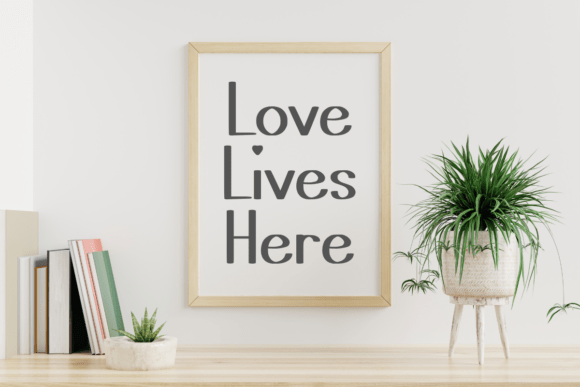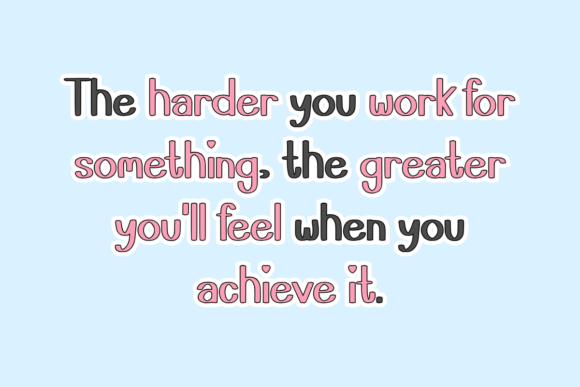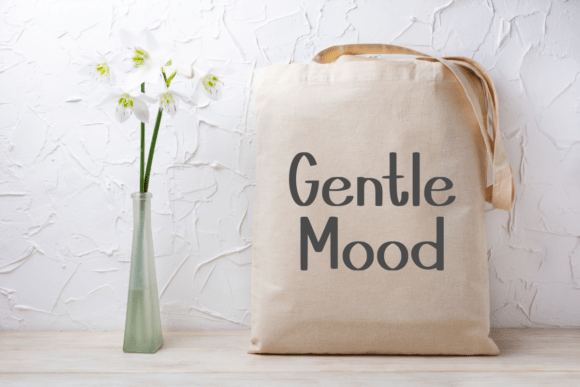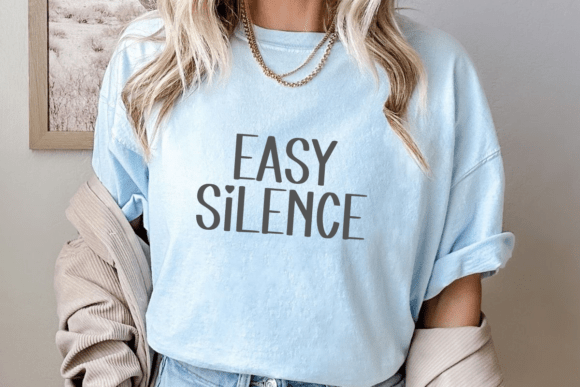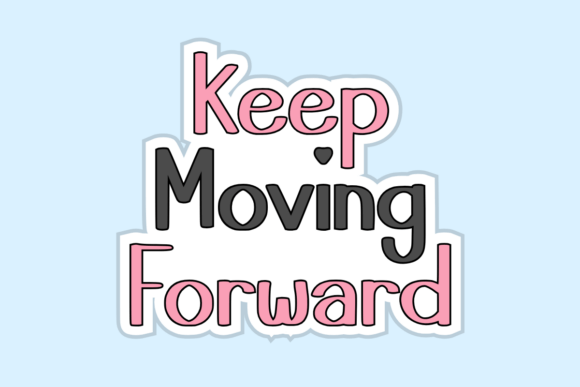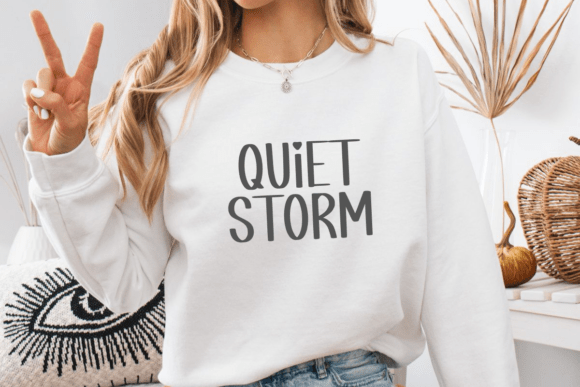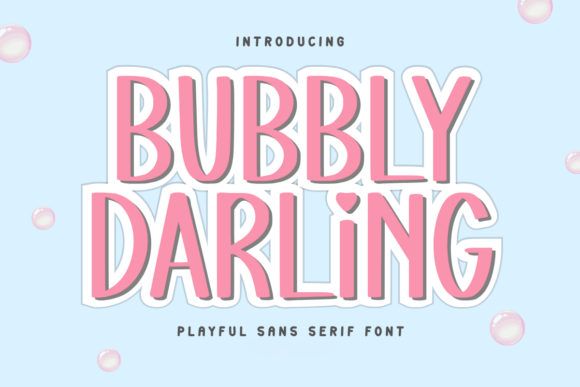
Bubbly Darling Font: The Perfect Handwriting Font for Crafty Projects
Are you a crafter, designer, or DIY enthusiast looking for a font that can add a touch of warmth and personality to your projects? Look no further than the Bubbly Darling font! This adorable sans serif handwriting font is designed to bring a soft, friendly, and natural look to your craft projects, making it perfect for a wide range of applications.
What Makes Bubbly Darling Font So Special?
Bubbly Darling is a handwriting font that is designed to mimic the look and feel of handwritten text. Its simple strokes and smooth curves make it easy to read and cut, making it perfect for use with cutting machines like Cricut and Silhouette. The font’s soft and friendly appearance makes it ideal for craft projects, planners, stickers, kids’ worksheets, classroom printables, and DIY designs.
Perfect for Crafting Moms and Designers
Bubbly Darling font is a dream come true for crafting moms and designers who love working with adorable handwritten styles. The font’s warm and handcrafted feeling makes it perfect for adding a personal touch to your projects. Whether you’re creating quotes, greeting cards, kids’ labels, coloring pages, worksheets, bullet journals, scrapbooks, or playful graphic projects, Bubbly Darling font is the perfect choice.
Key Features of Bubbly Darling Font
- Cute and Friendly Design: Bubbly Darling font has a soft and friendly appearance that is perfect for craft projects and DIY designs.
- Easy to Cut: The font’s simple strokes and smooth curves make it easy to cut using Cricut and Silhouette machines.
- Handcrafted Feel: Bubbly Darling font brings a warm and handcrafted feeling to your projects, making them look like they were made with love.
- Versatile: The font is perfect for a wide range of applications, including craft projects, planners, stickers, kids’ worksheets, classroom printables, and DIY designs.
Ideas for Using Bubbly Darling Font
Bubbly Darling font is a versatile font that can be used for a wide range of projects. Here are some ideas to get you started:
- Quotes and Greeting Cards: Use Bubbly Darling font to add a personal touch to your quotes and greeting cards.
- Kids’ Labels and Worksheets: The font is perfect for creating fun and colorful labels and worksheets for kids.
- Coloring Pages and Playful Graphic Projects: Bubbly Darling font is perfect for creating coloring pages, playful graphic projects, and other fun designs.
- Bullet Journals and Scrapbooks: Use the font to add a personal touch to your bullet journals and scrapbooks.
Tips for Getting the Most Out of Bubbly Darling Font
Here are some tips for getting the most out of Bubbly Darling font:
- Experiment with Different Sizes and Colors: Try out different sizes and colors to see what works best for your project.
- Pair with Other Fonts: Bubbly Darling font pairs well with other fonts, so don’t be afraid to experiment with different combinations.
- Use with Cutting Machines: The font is perfect for use with cutting machines like Cricut and Silhouette.
Bubbly Darling font is a versatile and adorable handwriting font that is perfect for crafty projects, DIY designs, and more. Its soft and friendly appearance, simple strokes, and smooth curves make it easy to read and cut, making it perfect for use with cutting machines. Whether you’re a crafting mom, designer, or DIY enthusiast, Bubbly Darling font is a great addition to your font collection.